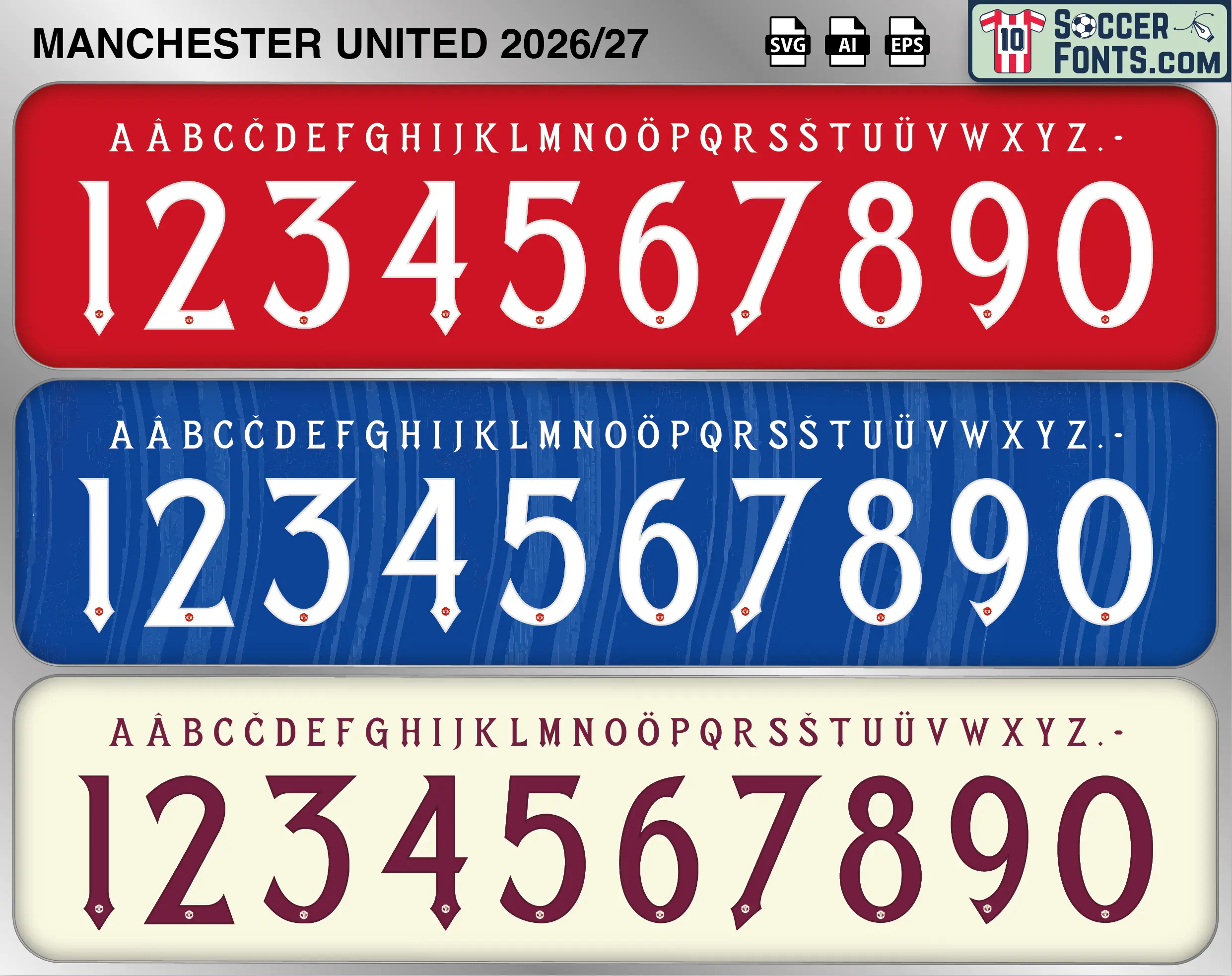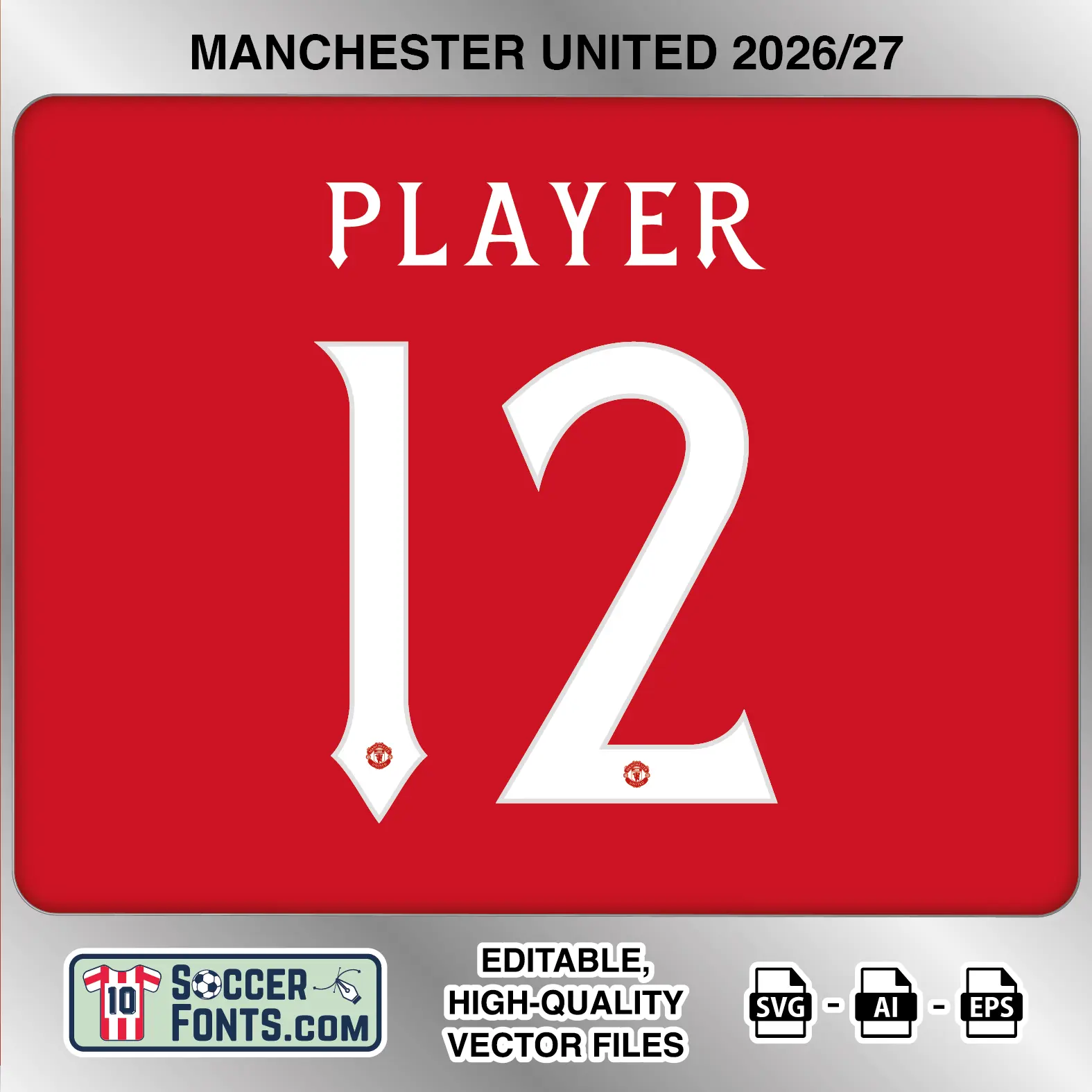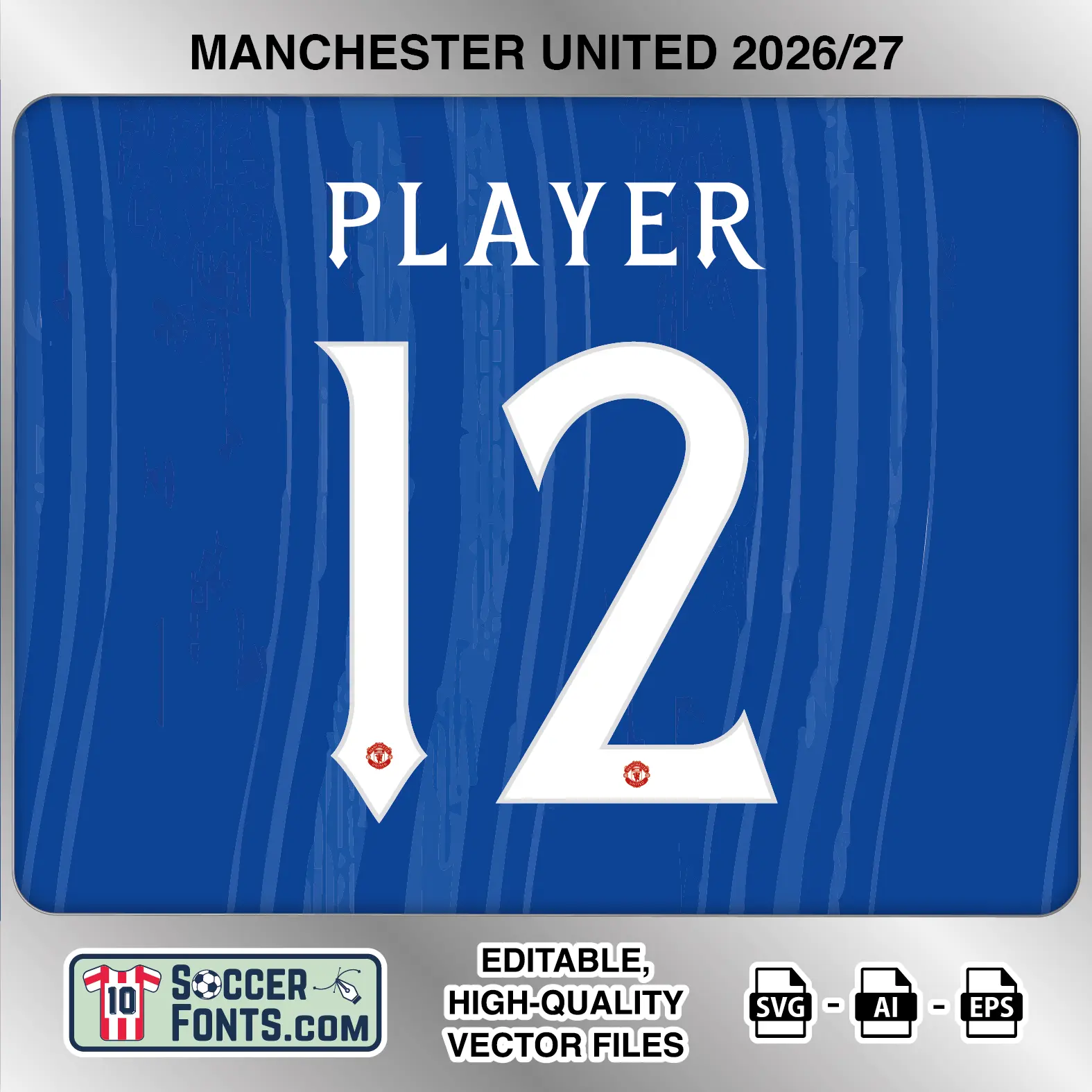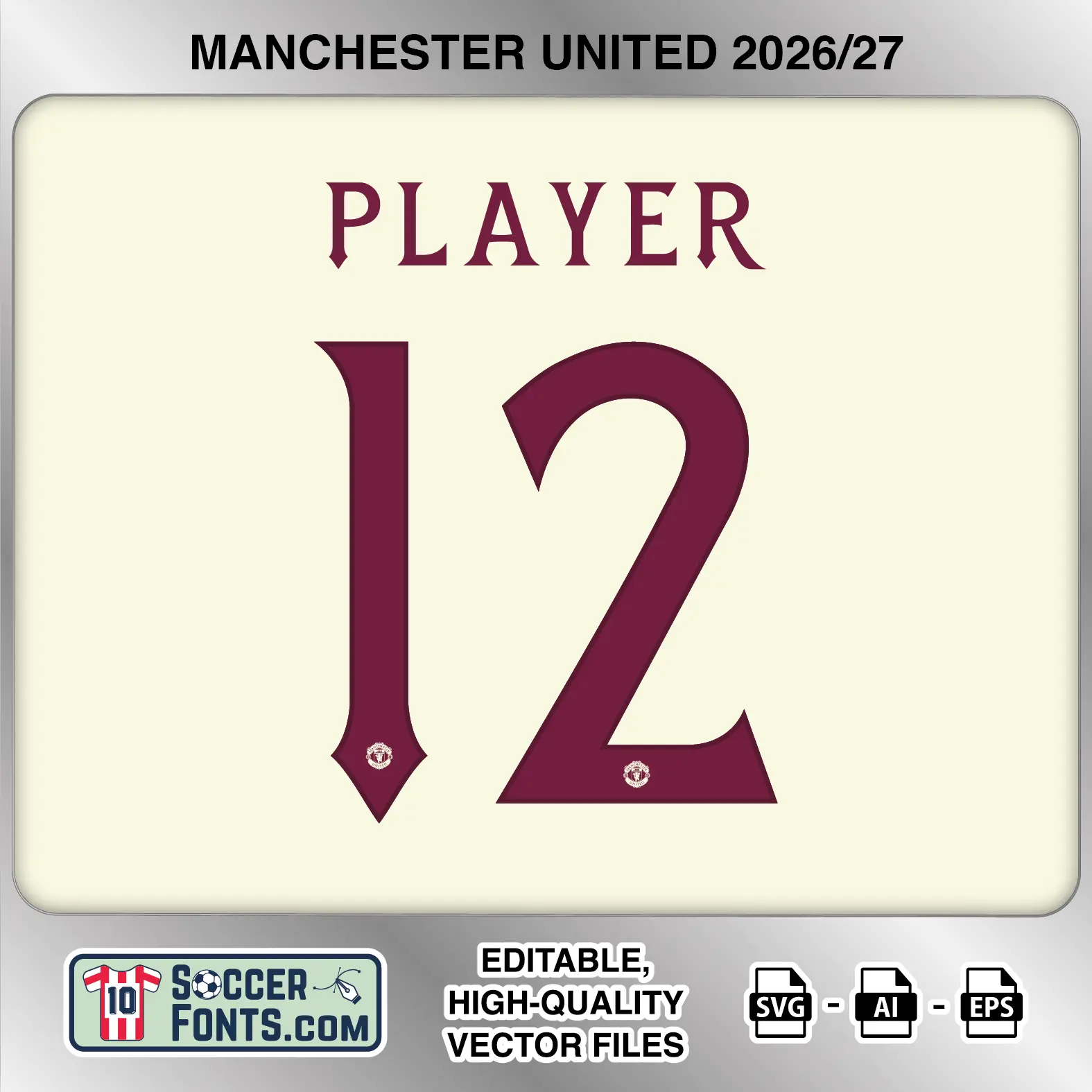
About Manchester United 2026-27 Font
Download Manchester United 2026-27 font, an editable soccer jersey lettering design in vector format inspired by the Manchester United kit style used during the 2026-27 football season. This football font artwork is prepared for football shirt recreations, custom jersey projects, football kit mockups and sports graphic design workflows.
Visual Identity of the Font Design :
The Manchester United 2026-27 lettering takes a distinctive serif-based approach rather than the condensed block construction commonly seen on football shirts. The uppercase alphabet has narrow proportions with pronounced pointed serifs, giving the player names a traditional, decorative character. The numbers extend this identity on a much larger scale, using long tapered strokes, sweeping curves and sharp pointed terminals. Figures such as 2, 3, 5 and 7 combine curved sections with wedge-shaped endings, while 1 and 4 feature particularly noticeable pointed lower terminals. The rounded 0, 6, 8 and 9 maintain tall, relatively narrow proportions. There is no heavy external outline or layered shadow, leaving the silhouettes of the characters clearly visible. A small Manchester United crest is positioned near the bottom of each numeral. The examples show white lettering for the red home and blue away treatments, while the third variation uses a dark burgundy color against a pale background.
Context of 2026-27 Season for Manchester United :
The 2026-27 campaign marks Michael Carrick’s first full season in charge of Manchester United, placing another new chapter in the club’s modern history around Old Trafford. The Manchester United 2026-27 Font belongs to a campaign that also brings Champions League football back into the club’s schedule, alongside the Premier League and domestic cup competitions.
United began the league season away to newly promoted Hull City before returning to Old Trafford to face Ipswich Town. Early fixtures also include Everton, Fulham and a Manchester derby against Manchester City in September, giving the opening months an immediate mixture of promoted opposition, traditional league fixtures and one of the club’s defining rivalries.
With Old Trafford again hosting major domestic and European nights, the Manchester United 2026-27 Font represents a season carrying renewed expectations. For shirt collectors and football design projects, the Manchester United 2026-27 Font identifies Carrick’s first complete campaign as manager and another stage in United’s attempt to establish themselves consistently among England’s leading clubs.
Manchester United 2026-27 football shirt font showing alphabet letters and jersey numbers